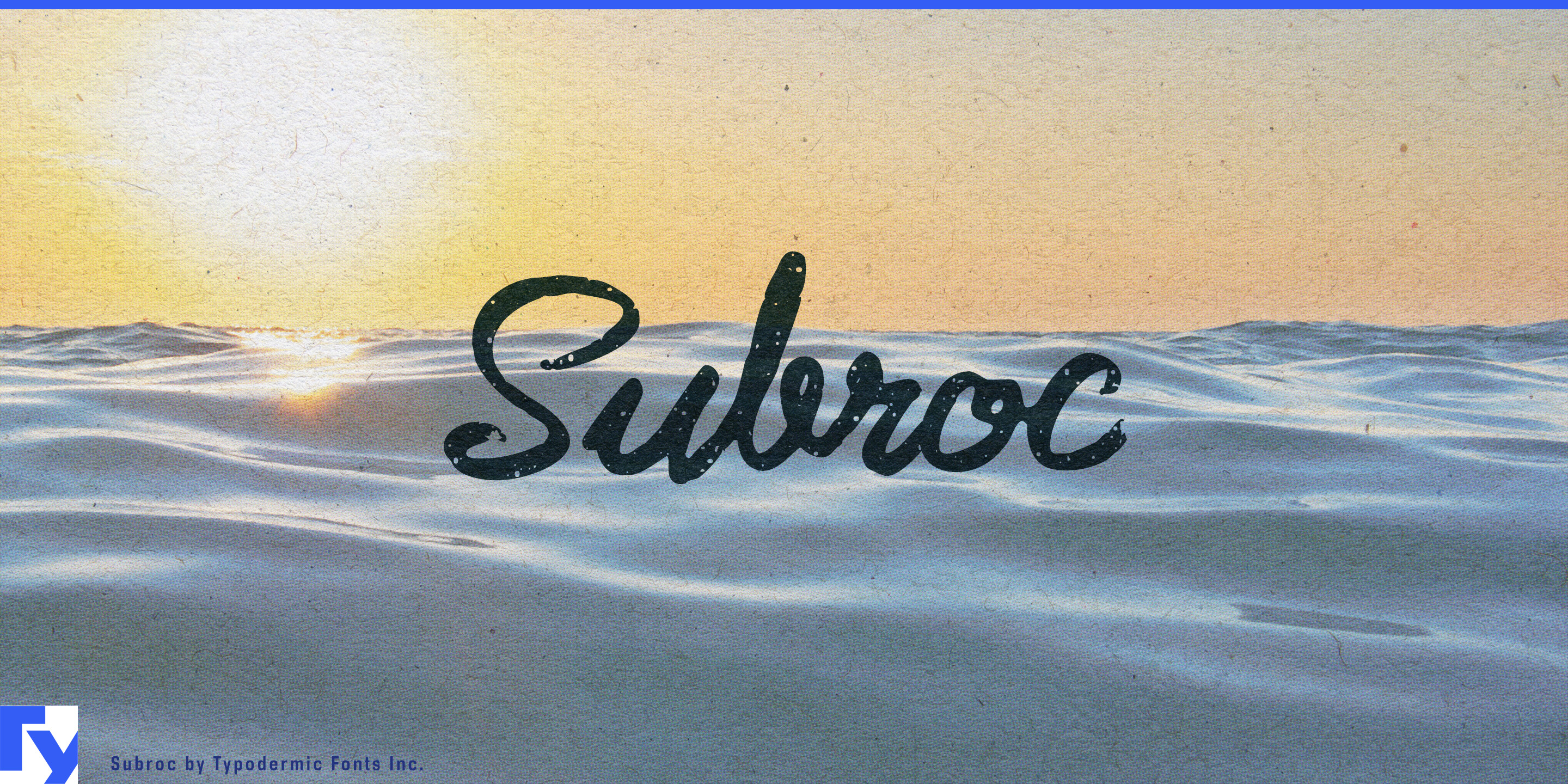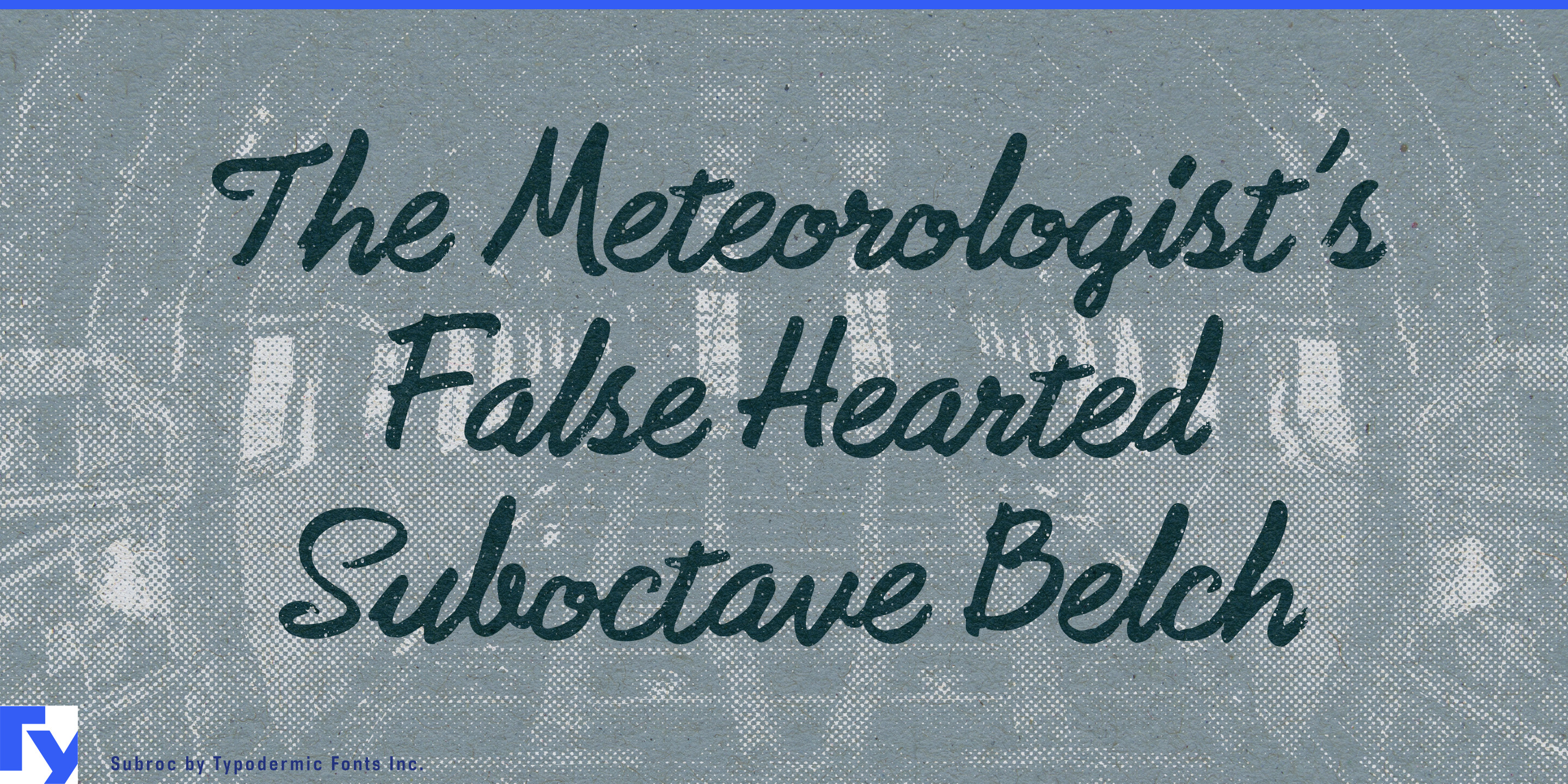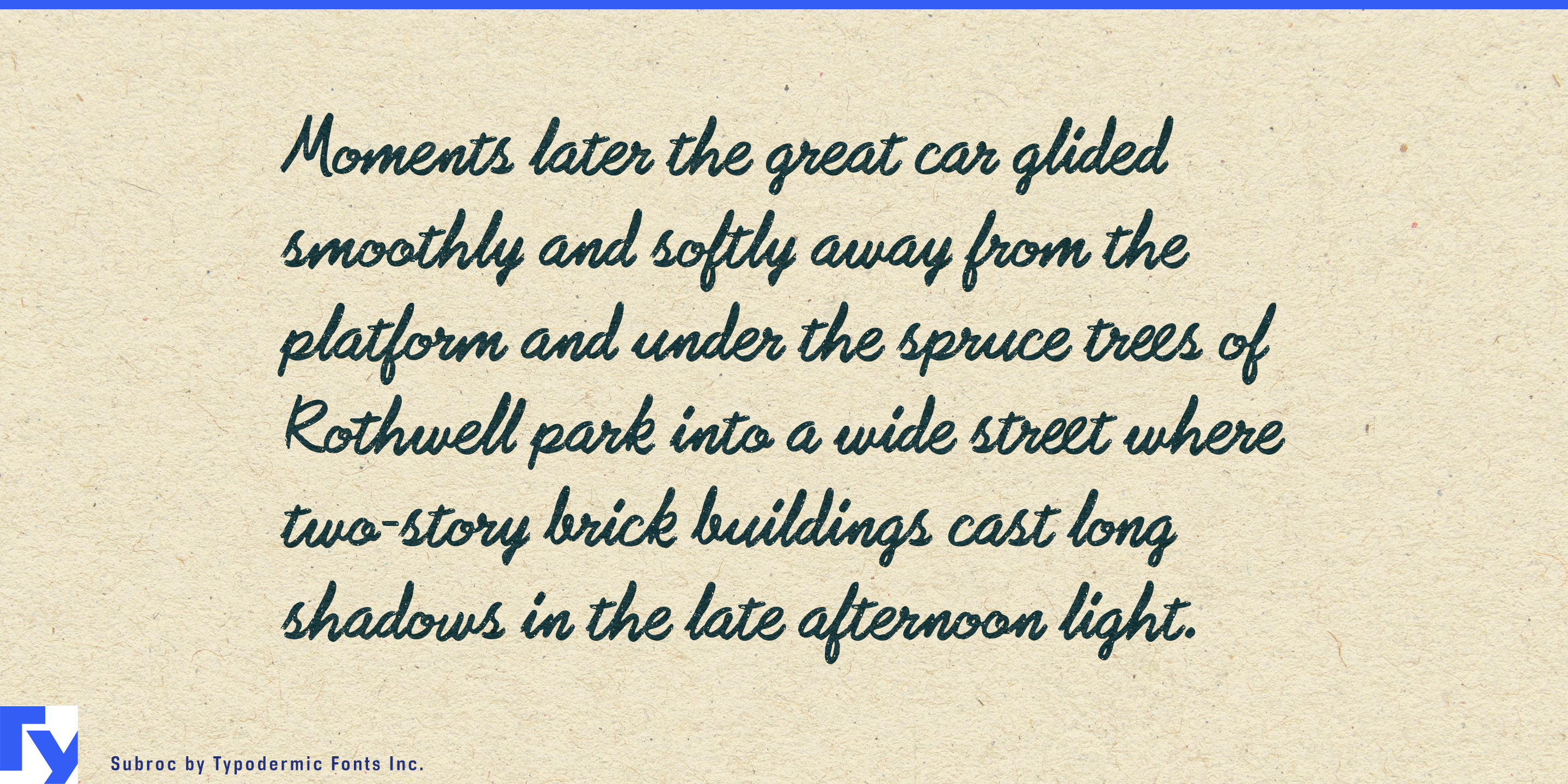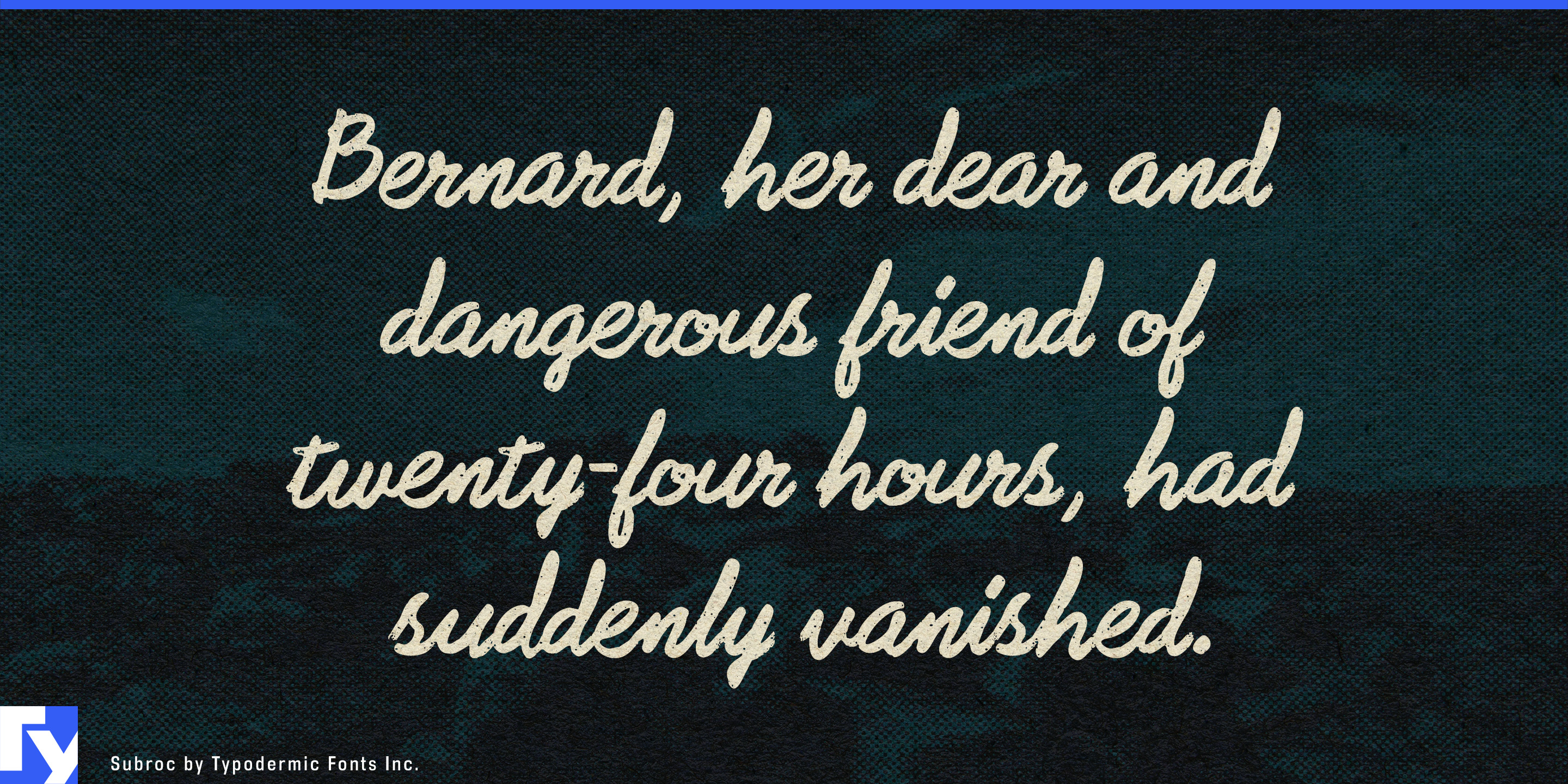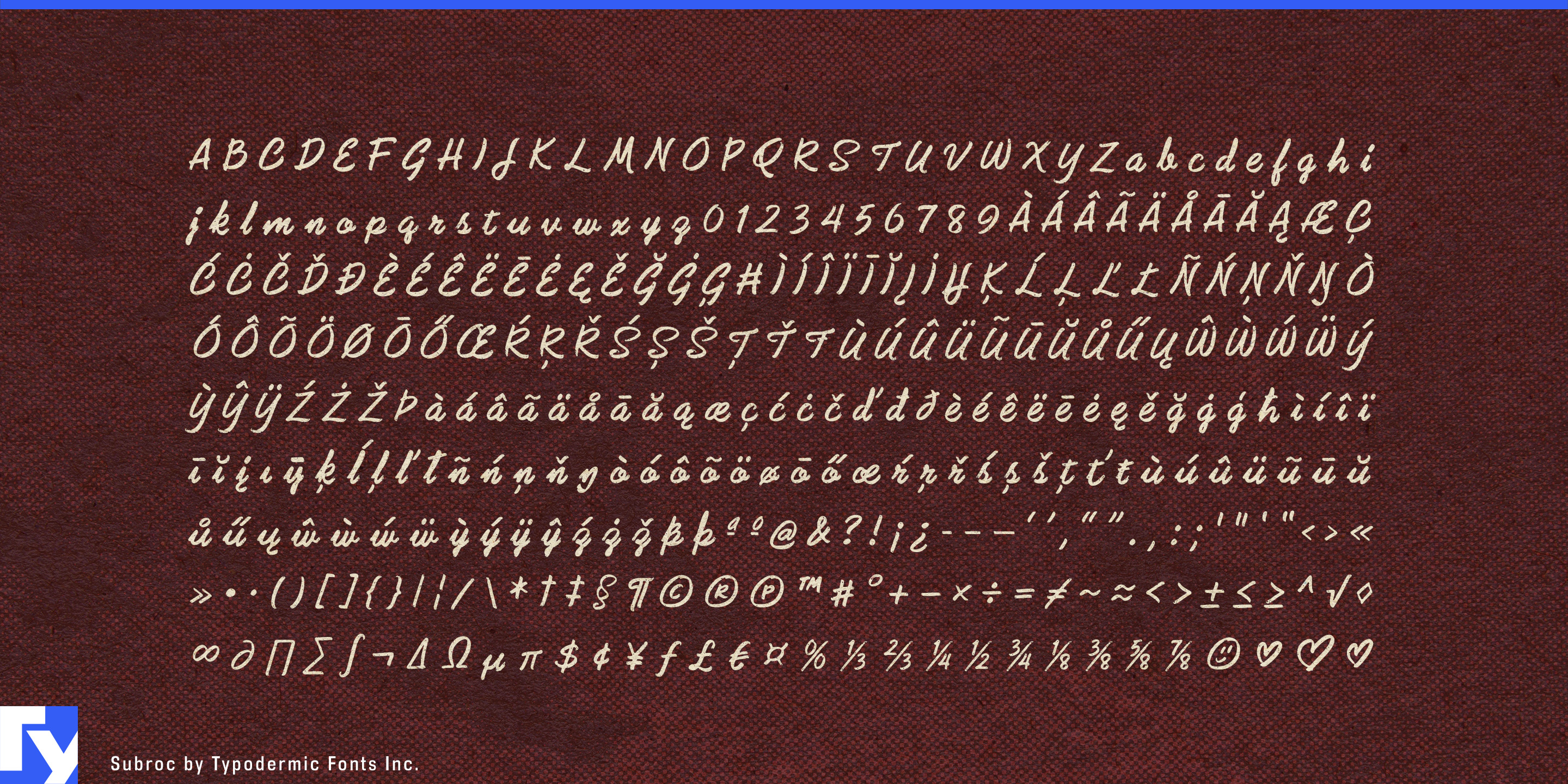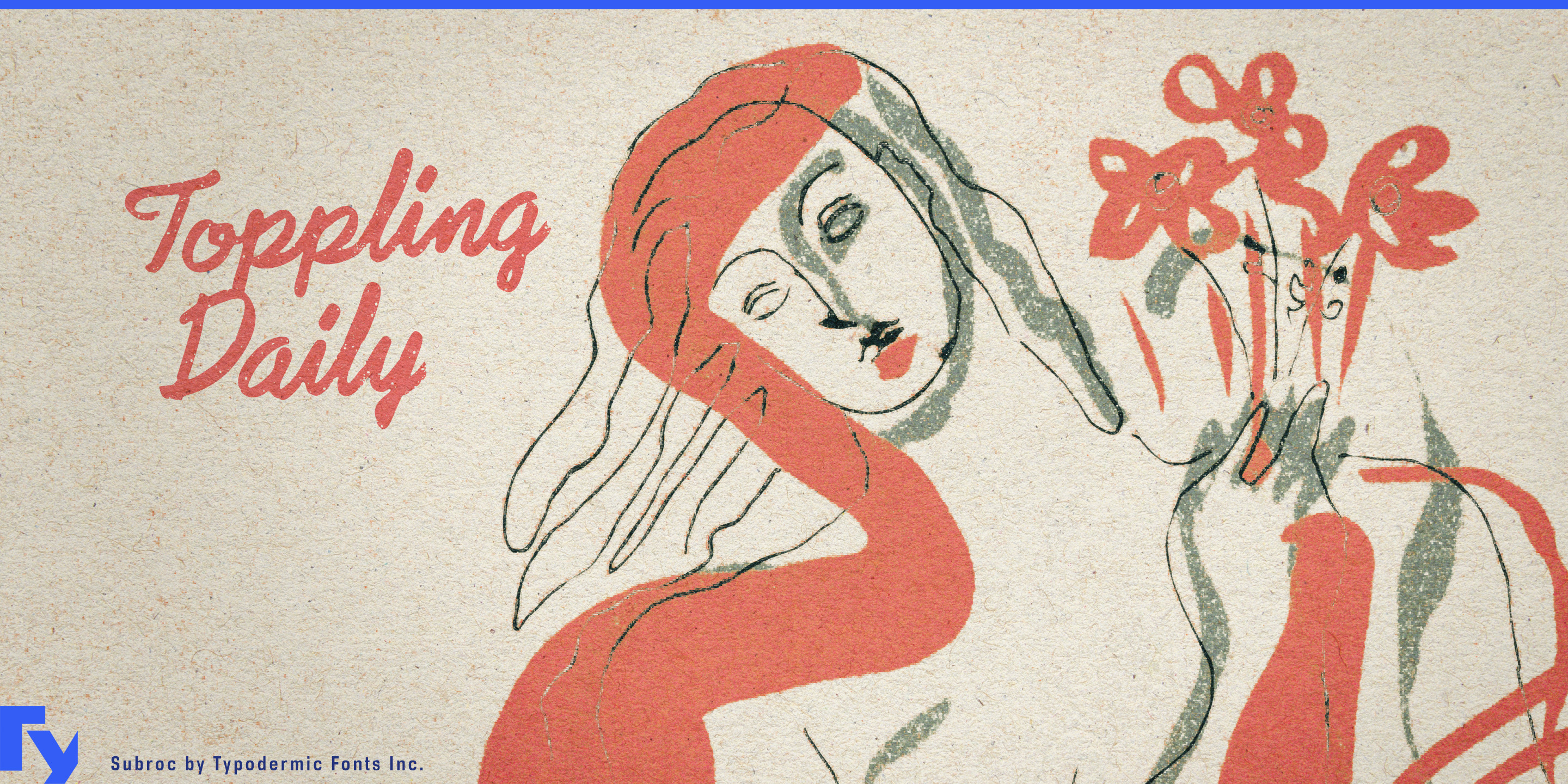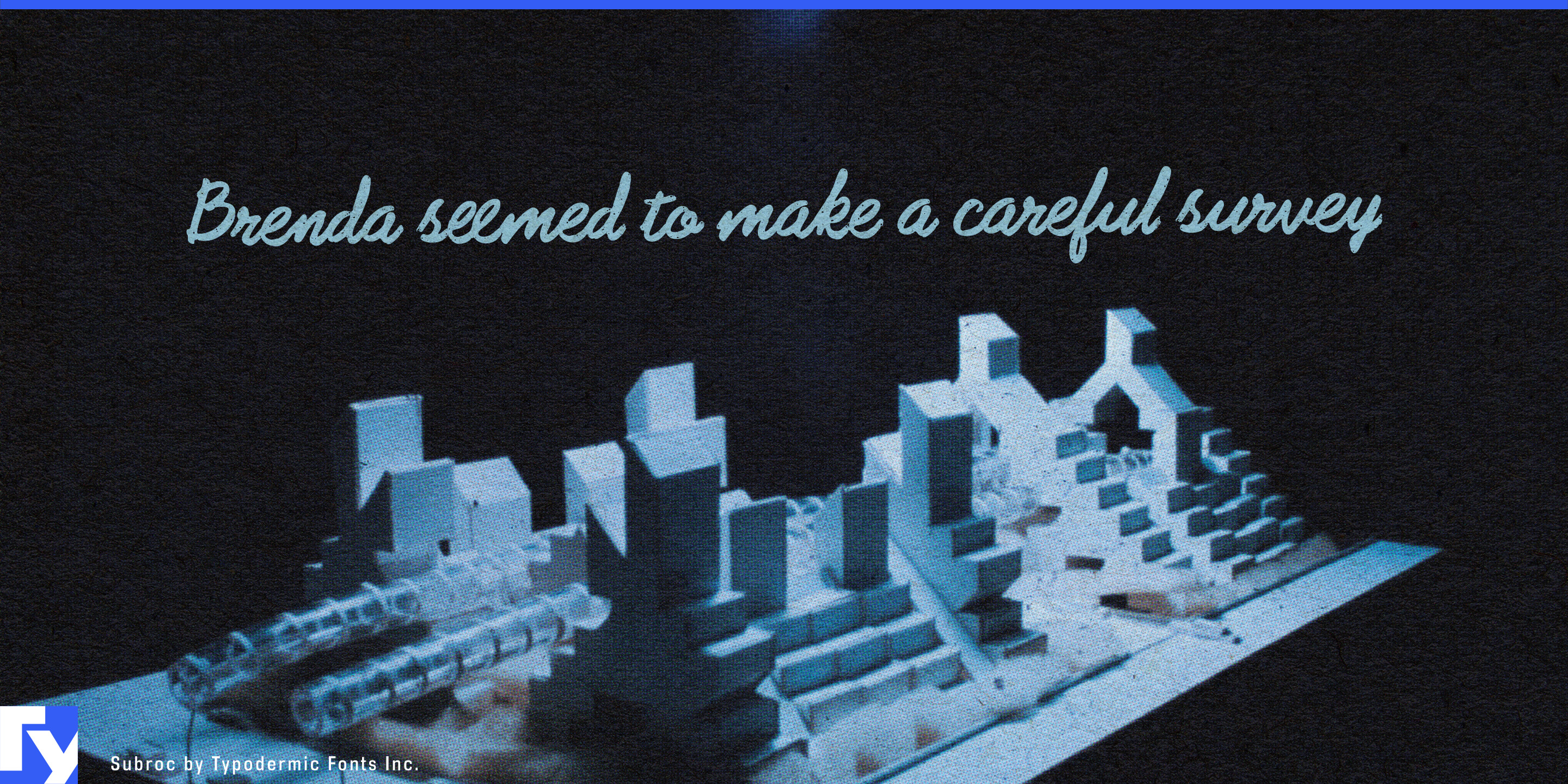
Subroc
Handwritten typography has an odd problem: the more beautifully it is drawn, the less it resembles something someone actually dashed off with a marker. Subroc takes the less polished route. Its connected strokes, ordinary handwriting rhythm and grainy texture give layouts a handwritten element that looks written rather than carefully lettered.
That makes Subroc especially useful as the second voice in an otherwise controlled design system. A clean sans or condensed grotesk can handle the brand and information; Subroc can carry the flavor name, product nickname, limited variant, short instruction or scribbled remark. The contrast makes the handwriting feel like a human intervention rather than another layer of branding.
On packaged foods, Subroc can distinguish varieties across sauces, condiments, snacks, prepared meals and refrigerated products while the rest of the packaging stays consistent. In automotive and workshop settings, it suits detailing products, restoration supplies, performance parts and garage equipment, where formula names, special editions and product nicknames can borrow the character of paint-marker notes and parts labels without resorting to nostalgic sign-painter styling.
The same approach works on surfboards, skate and snow equipment, wetsuits, workwear and streetwear. Model names, capsule titles, wash names, hangtag notes and short inscriptions gain the feeling of something written directly onto the product. Racing and workshop games can use Subroc similarly for vehicle nicknames, garage notes, object labels and handwritten environmental details.
Subroc is a single-style display script, best used for names, notes and short phrases where its connected marker rhythm and textured surface remain visible. Pair it with something orderly and the division of labor becomes clear: one typeface builds the system; Subroc looks like somebody reached into it with a marker.